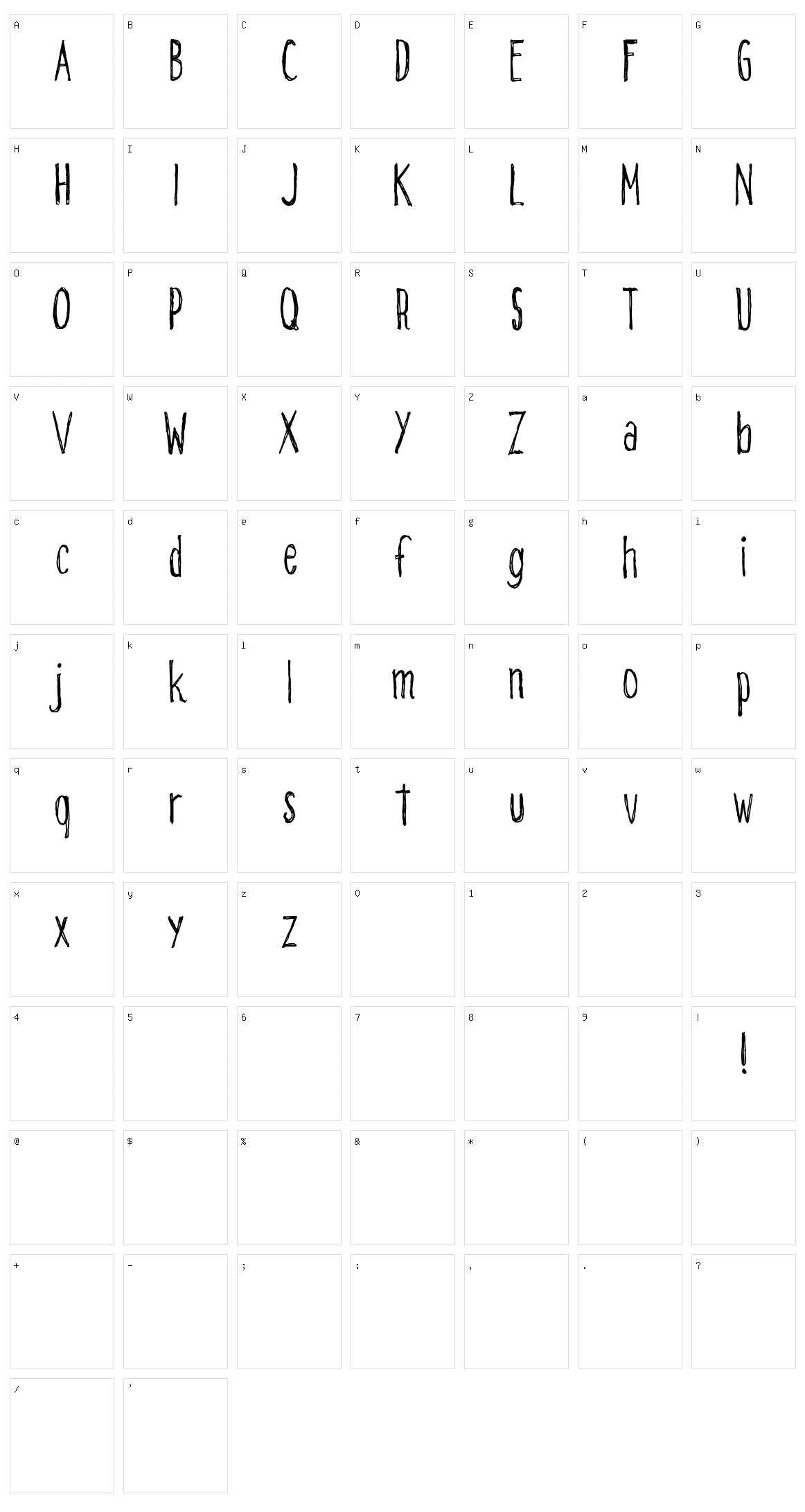
The free font CF Alone on the Earth is carefully designed by Cloutierfontes, showcasing a thoughtful balance of creativity and usability and falls under the Trash font style. When you download the ZIP file, it contains only 35.89 KB of font files, making it lightweight and quick to download. Please review the license details below to understand permitted usage and distribution rights. If license information is not available, we recommend using this font for personal projects only or contacting the author directly for commercial usage permissions.